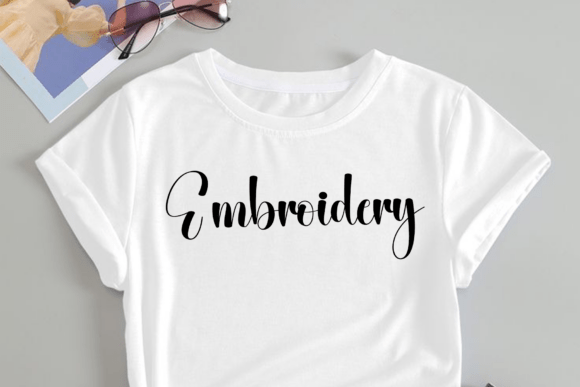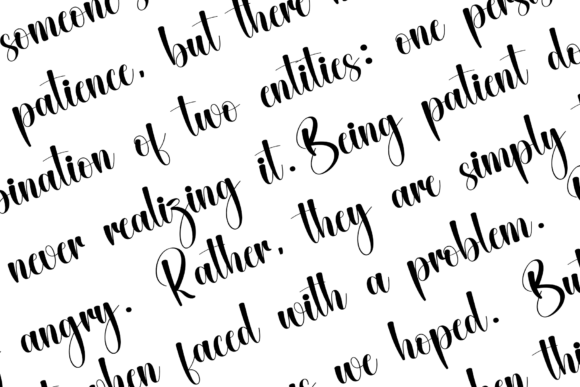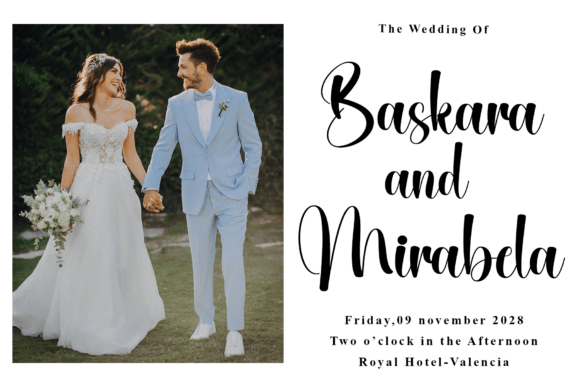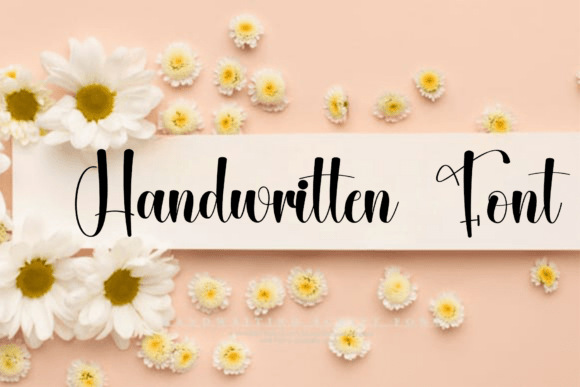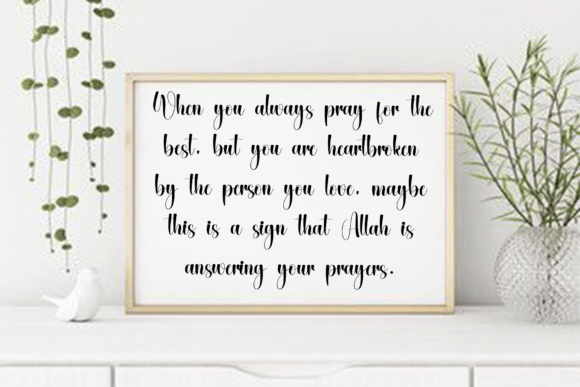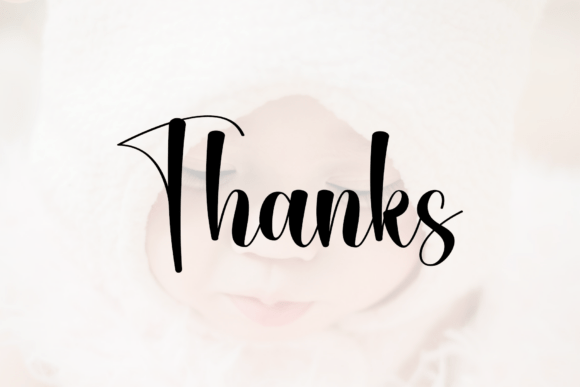
Baby Cute Font: Elevate Your Designs with a Bold and Expressive Modern Calligraphy Font
Are you a designer or crafter looking for a font that can add a touch of elegance and sophistication to your creative projects? Look no further than the Baby Cute Font. This modern calligraphy font is a bold and expressive typeface that flows with energy and charm, making it perfect for a wide range of design applications.
What Makes Baby Cute Font So Special?
Baby Cute Font is a unique and stylish typeface that is characterized by its tall ascenders, dramatic swashes, and organic curves. These features give the font a sense of movement and fluidity, making it perfect for designs that require a touch of elegance and sophistication. Whether you’re looking to create a logo, social media post, or product packaging, Baby Cute Font is sure to make a lasting impression.
Baby Cute Font is a versatile typeface that can be used for a wide range of design applications. Some of the most popular uses for this font include:
• Logo Design: The bold and expressive nature of Baby Cute Font makes it perfect for logo design. Whether you’re looking to create a logo for a new business or rebrand an existing one, this font is sure to make a statement.
• Instagram Posts: Add a touch of elegance and sophistication to your Instagram posts with Baby Cute Font. This font is perfect for creating eye-catching captions and quotes that will help you stand out from the crowd.
• Business Cards: Make a lasting impression with your business cards by using Baby Cute Font. This font is perfect for creating professional and stylish business cards that will help you stand out from the competition.
• Product Packaging: Add a touch of luxury and sophistication to your product packaging with Baby Cute Font. This font is perfect for creating eye-catching labels and packaging that will help your products stand out on store shelves.
• Wedding Stationery: Make your wedding stationery truly special with Baby Cute Font. This font is perfect for creating beautiful and elegant wedding invitations, save-the-dates, and thank-you cards.
• Fashion Branding: The bold and expressive nature of Baby Cute Font makes it perfect for fashion branding. Whether you’re looking to create a logo, label, or advertisement for your fashion brand, this font is sure to make a statement.
Why Choose Baby Cute Font?
There are many reasons why Baby Cute Font is the perfect choice for designers and crafters. Some of the key benefits of this font include:
• Hand-Drawn with Intention: Every letter in Baby Cute Font feels hand-drawn with intention, giving it a unique and personal touch.
• Blend of Strength and Sophistication: This font combines strength and sophistication, making it perfect for designers and crafters who want to create bold and stylish designs.
• Confident and Stylish: Baby Cute Font is the perfect choice for designers and crafters who want to make a confident and stylish impression.
Tips for Using Baby Cute Font
Here are a few tips for using Baby Cute Font in your designs:
• Use it as a Headline Font: Baby Cute Font is perfect for use as a headline font. Its bold and expressive nature makes it perfect for grabbing attention and making a statement.
• Pair it with a Simple Font: For body text, pair Baby Cute Font with a simple and clean font to create a striking contrast.
• Experiment with Swashes: The dramatic swashes in Baby Cute Font can add a touch of elegance and sophistication to your designs. Experiment with different swash styles to find the one that works best for your project.
In conclusion, Baby Cute Font is a bold and expressive modern calligraphy font that is perfect for designers and crafters who want to add a touch of elegance and sophistication to their creative projects. With its tall ascenders, dramatic swashes, and organic curves, this font is sure to make a lasting impression. Whether you’re looking to create a logo, social media post, or product packaging, Baby Cute Font is the perfect choice.